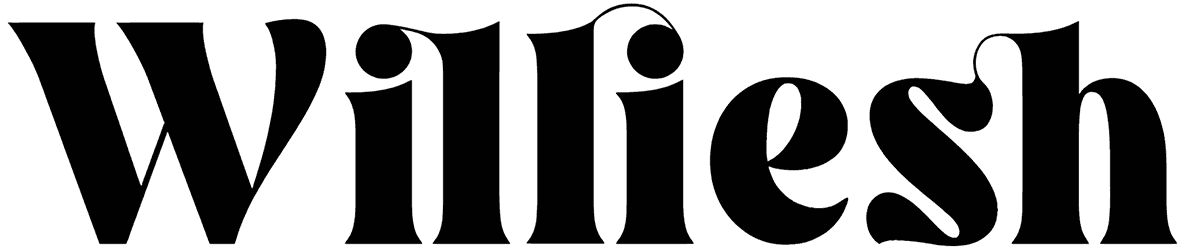
Williesh Font
A luxury serif font such as Williesh is always trendy and useful, so we invite you to try this font in your business cards, presentations, social media posts, logos, and invitations. Since it shares a sense of confidence, trust, respect, and validity with the audience and attracts their attention at first glance, not fully supporting numbers is not a problematic deficiency.